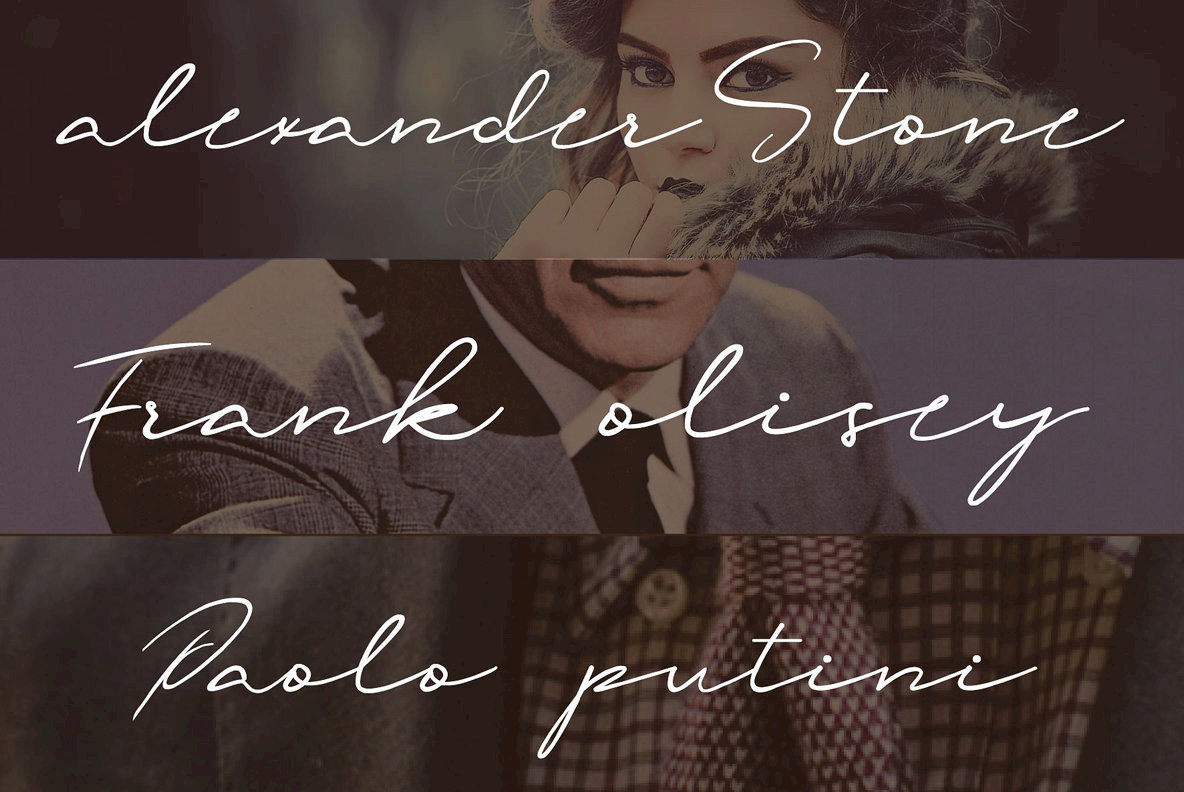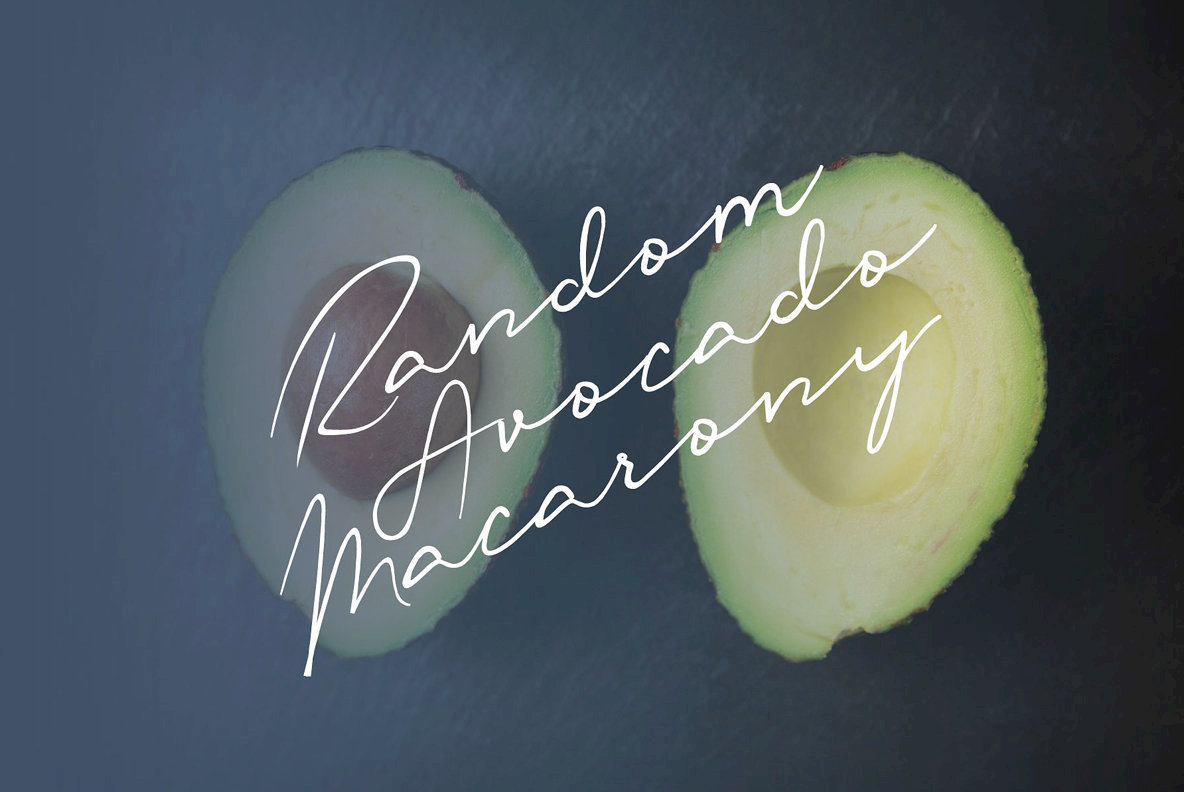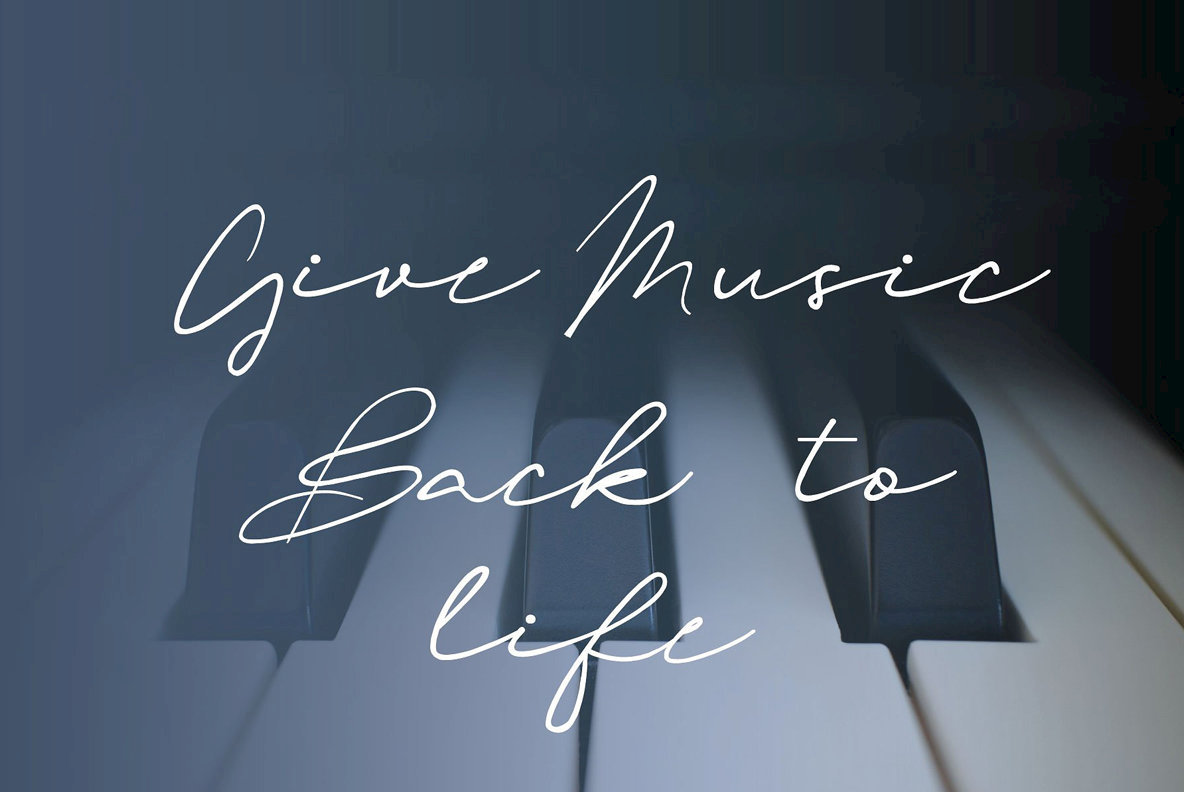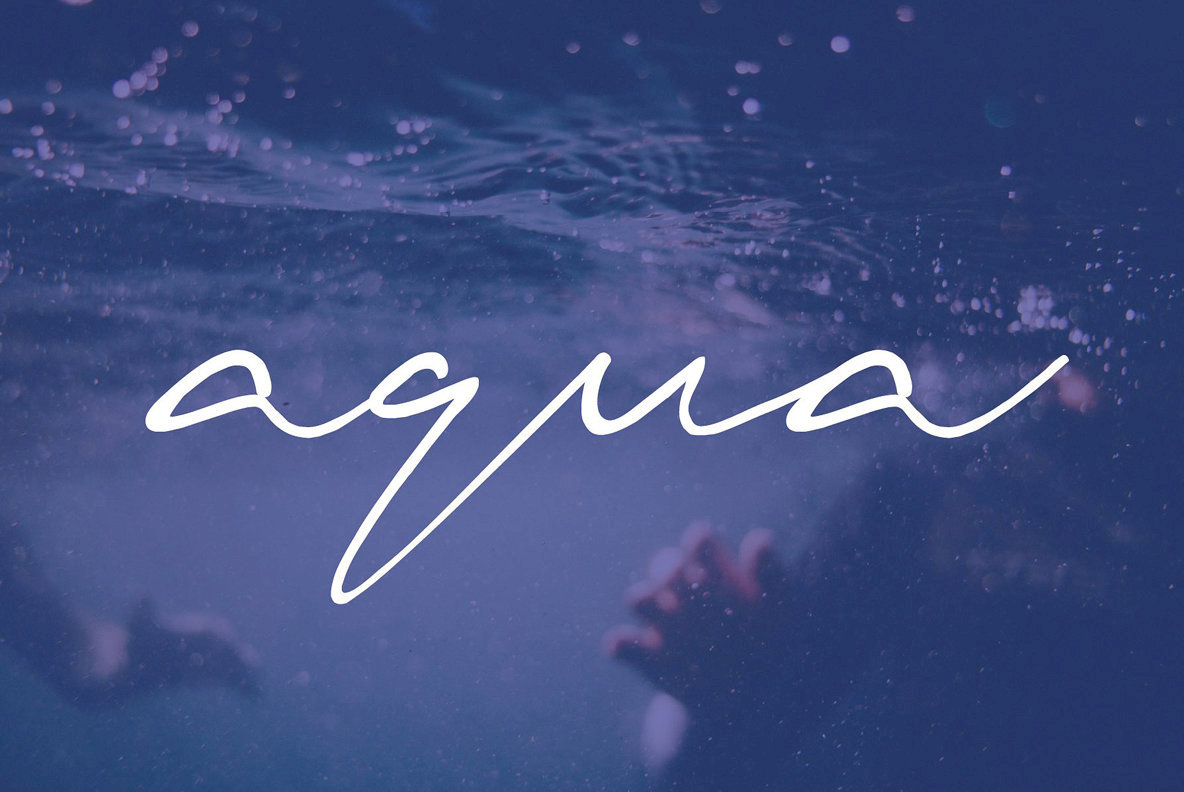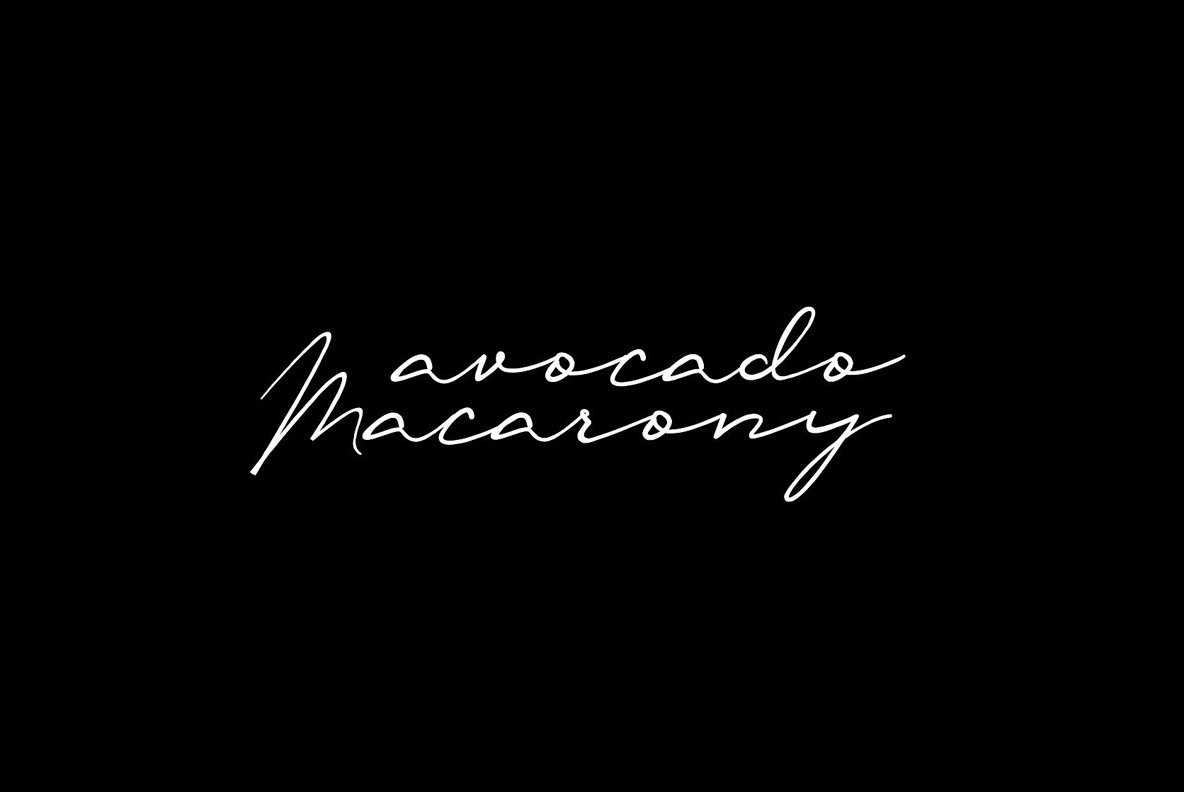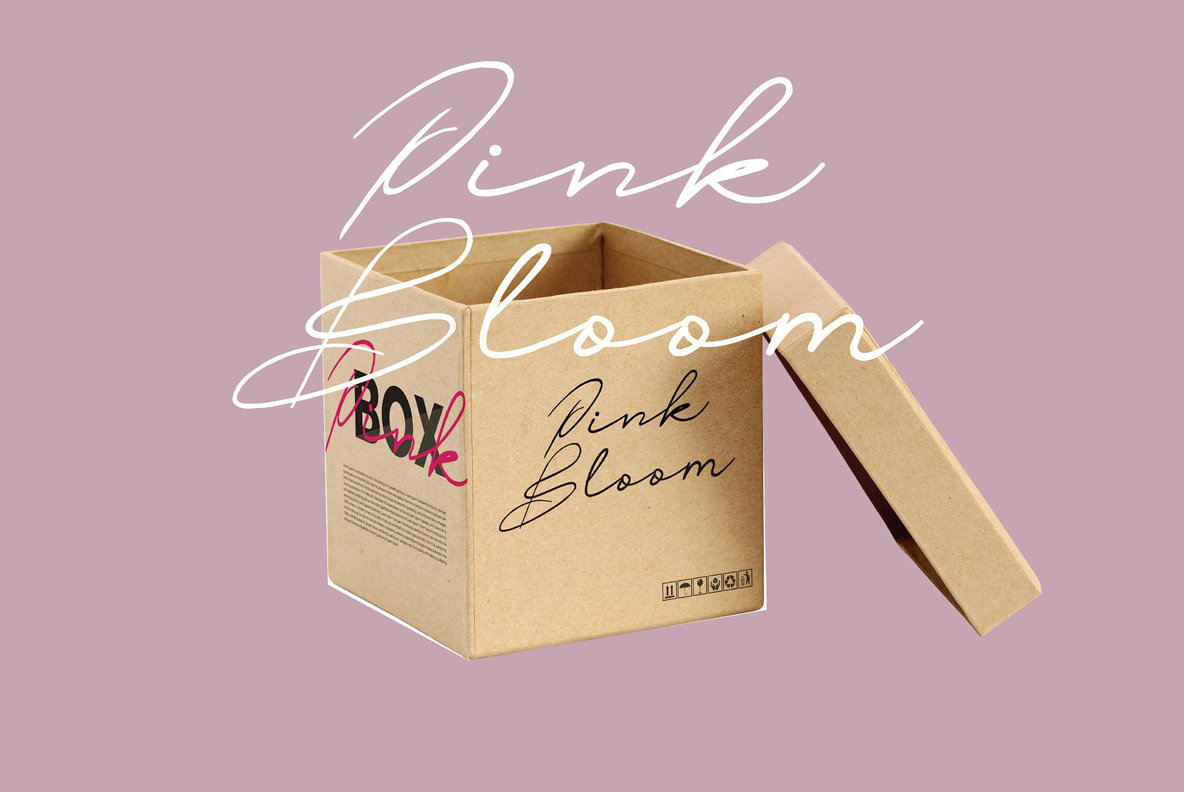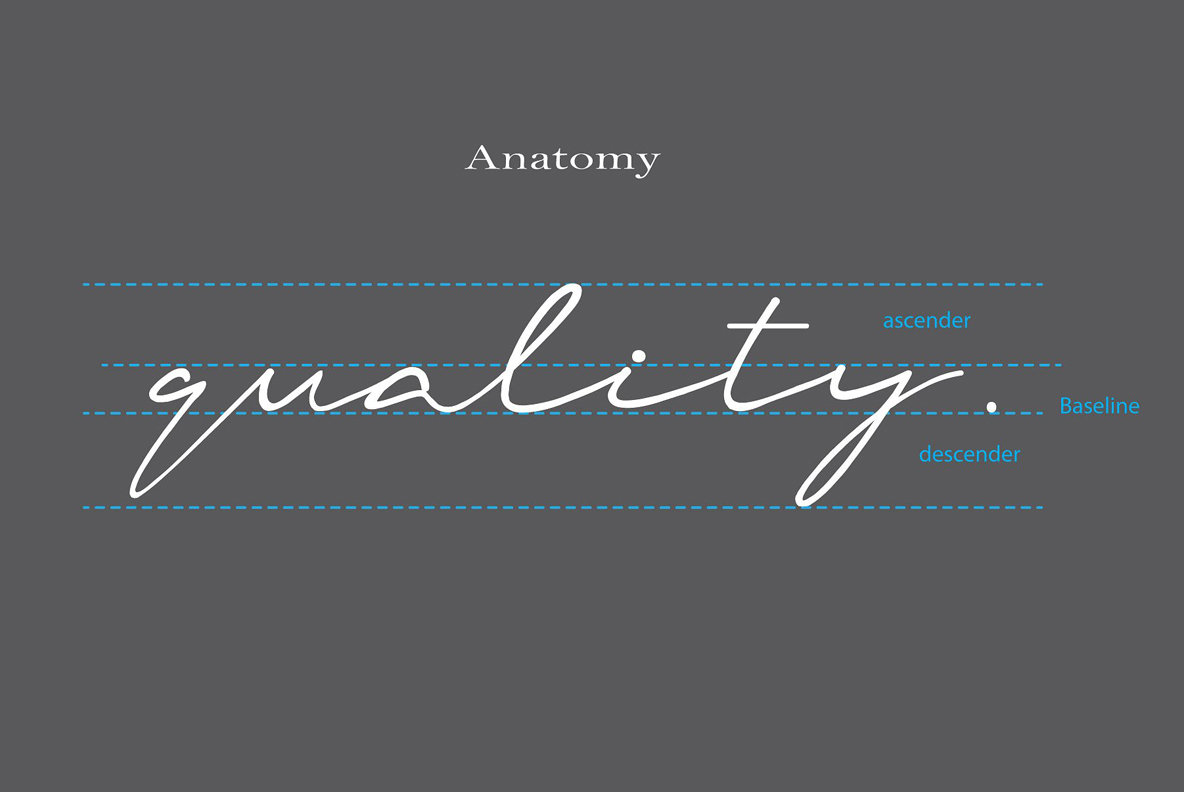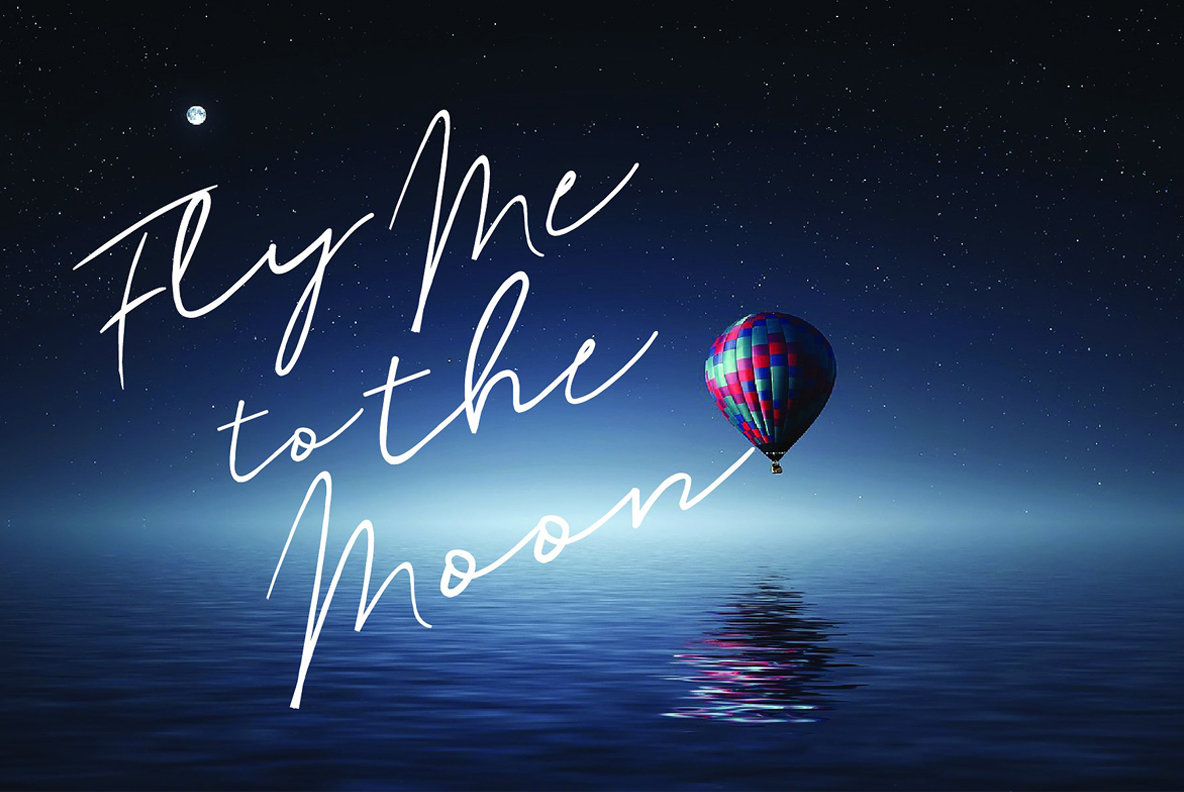
oliver quin Font
oliver quin
Introducing, oliver quin; a low italic script handwriting font. beautiful and stylish style script font and a free-flowing. oliver quin offers beautiful pen movement harmony for a diversity of design projects, including logos & branding, wedding designs, social media posts, advertisements, poster, watermark fotography, etc. happy design.